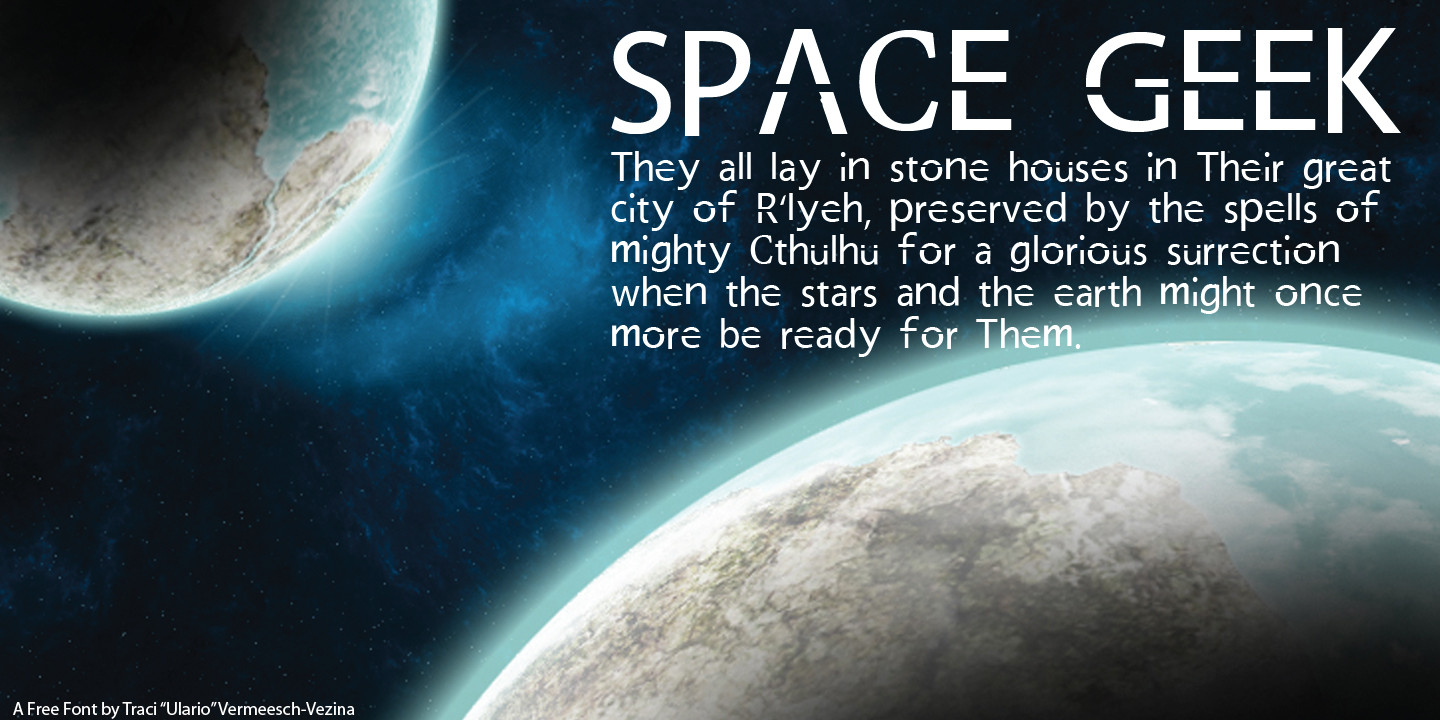
A free font for you to download and use. A nice sci-fi font! It's my first attempt at font creation.A project for a college course I did where we had to edit a few existing fonts and learn to use a few Mac editing software.